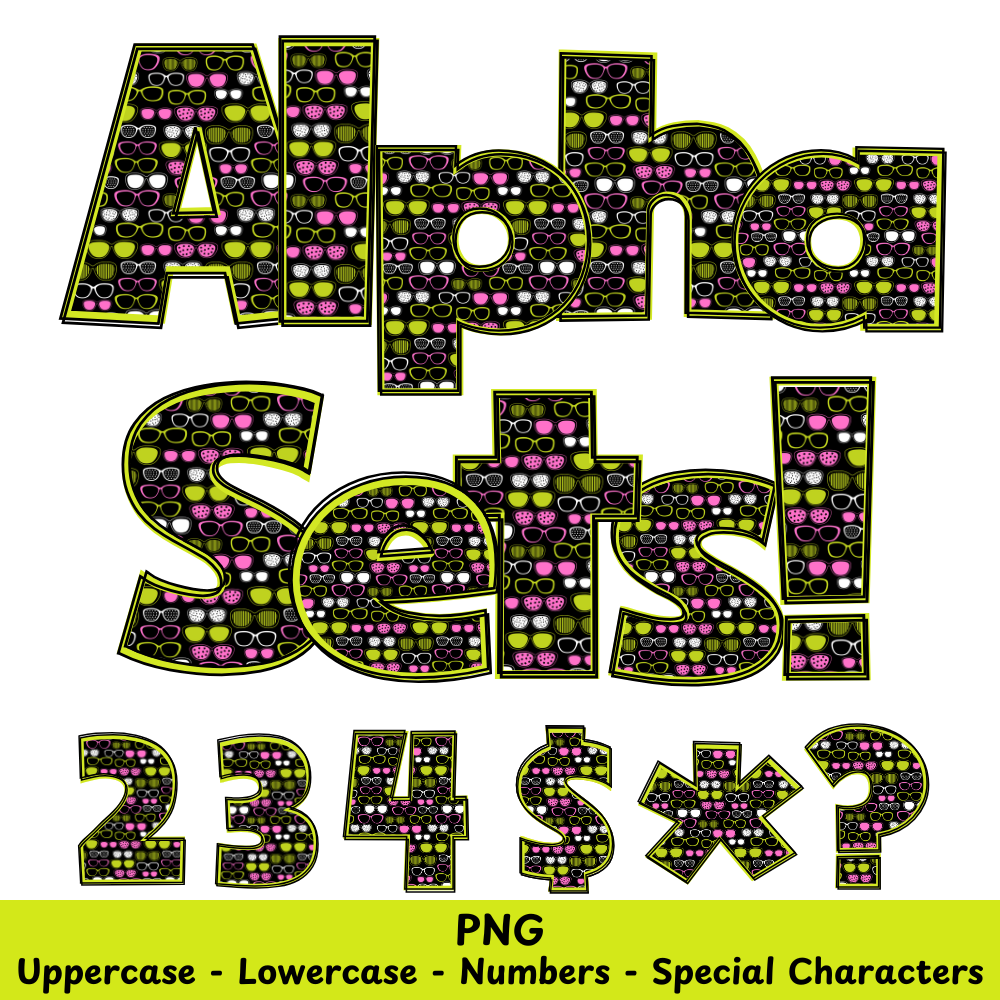
Sunglasses Tropical PNG Font
Sunglasses Tropical Alpha Set PNG Font Pack
Enhance your crafts and designs with the tropical vibes of our Sunglasses Tropical PNG Font. Perfect for use in sublimation and other projects, this font boasts a unique design that will make your creations stand out. Add a touch of summer to any project with our Sunglasses Tropical PNG Font.